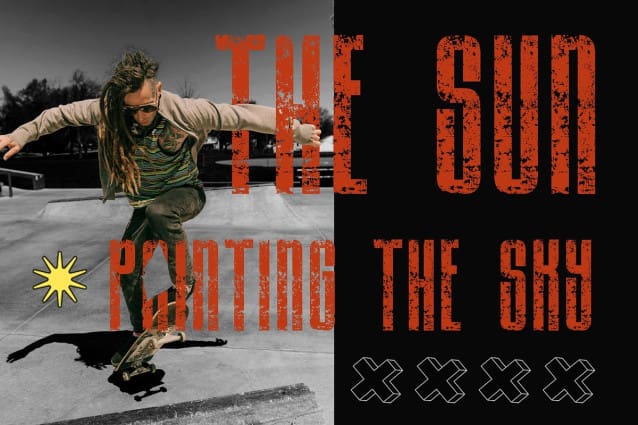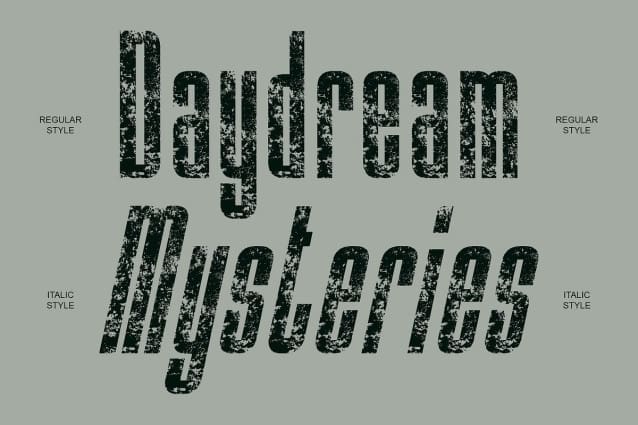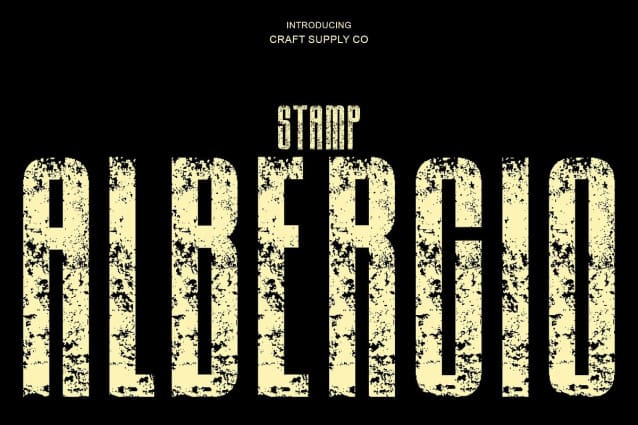
Albercio Stamp Font
Albercio Stamp Font : Condensed Sans Serif with Stamp Finish: Where Modern Precision Meets Vintage Texture.Compact Form with Bold Presence This is a modern condensed sans serif font designed to deliver maximum impact in minimal space. Its tall, narrow proportions and clean geometry create a striking sense of strength and confidence, perfect for designers seeking clarity and boldness in compact layouts.
Stamp Texture for Timeless Character What sets this font apart is its authentic stamp texture, which adds a subtle vintage touch to its contemporary form. The worn, tactile surface creates visual depth blending modern precision with handcrafted imperfection. This fusion of structure and texture makes the font both versatile and visually engaging.
Perfect for Headlines and Branding This fonts excels in bold compositions such as headlines, posters, and branding materials. Its strong presence captures attention instantly while maintaining excellent readability, making it a powerful choice for both print and digital designs that demand authority with style.
Balancing Readability and Personality Despite its condensed structure, remains clear and approachable. The combination of compact design and vintage stamp texture results in a unique typographic experience ideal for brands or creative projects that want to express confidence, nostalgia, and modern sophistication all at once.